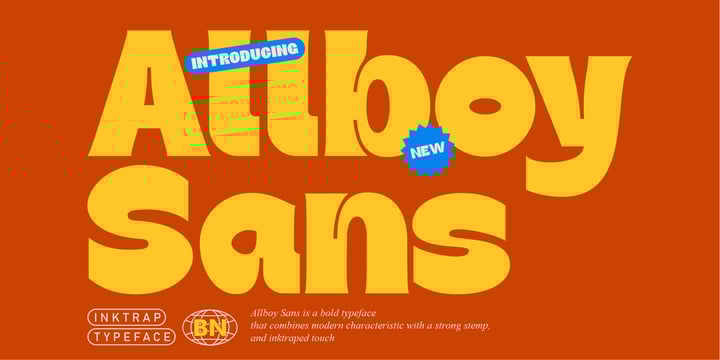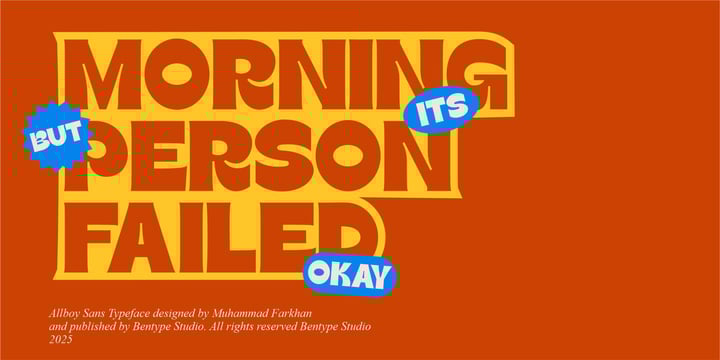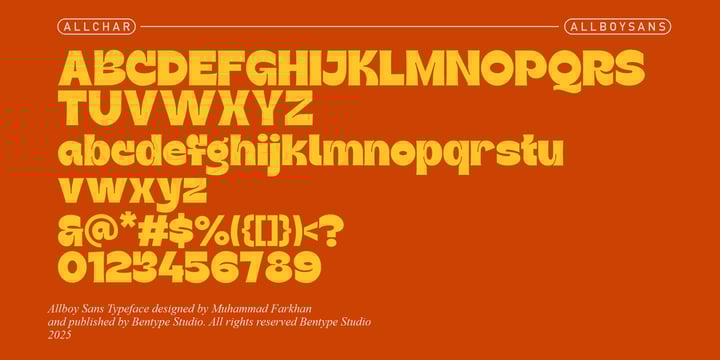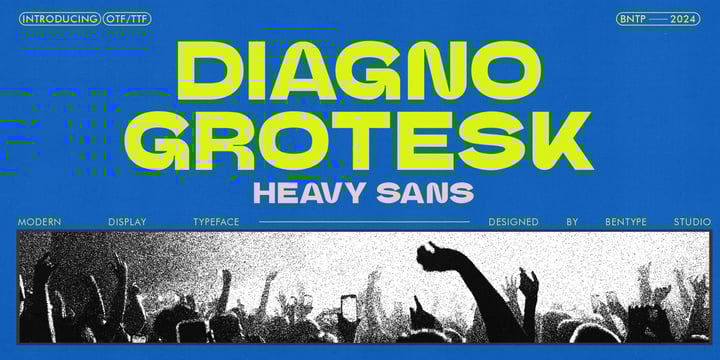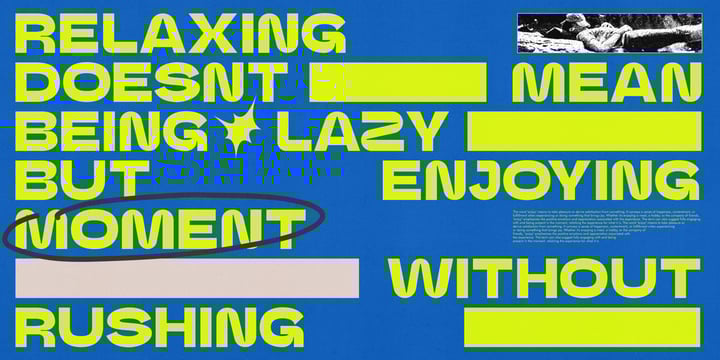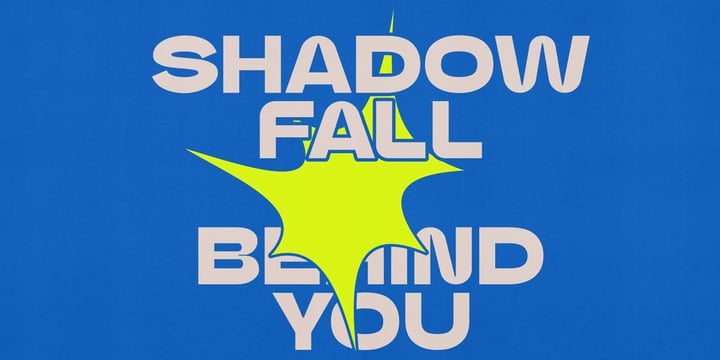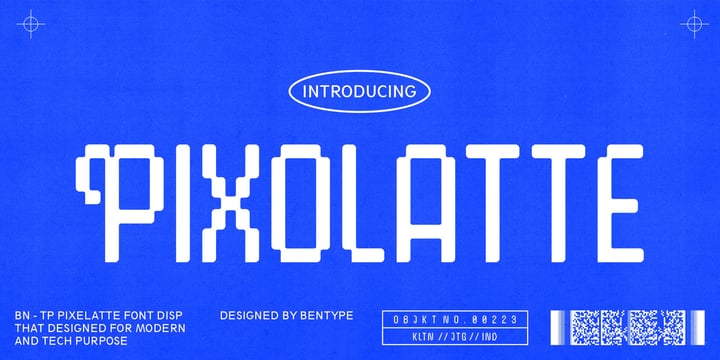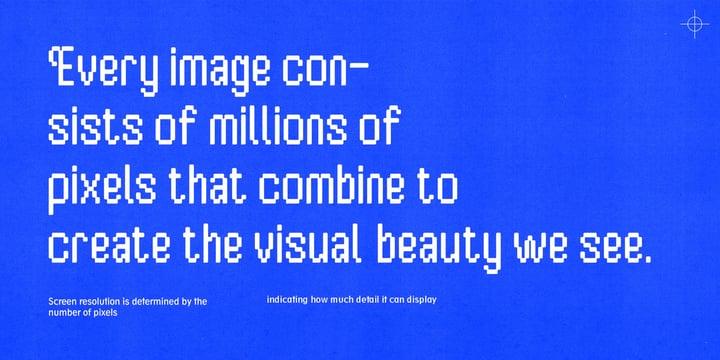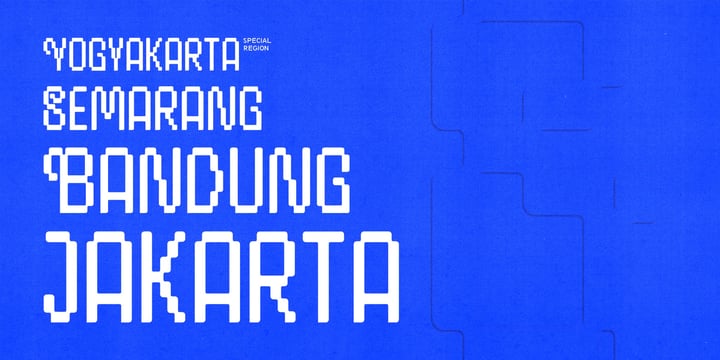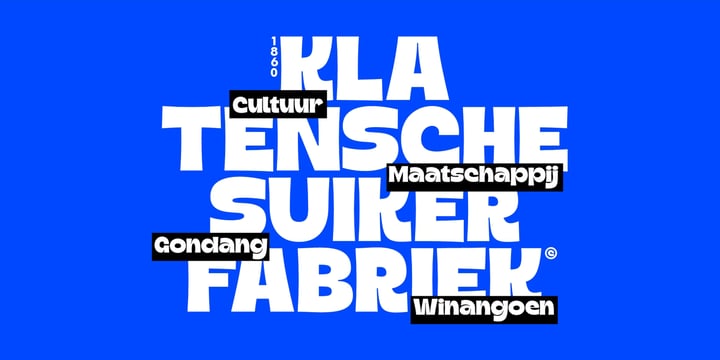
Hi, I am Muhammad Farkhan, a type designer from Indonesia since 2016. I studied at a design campus since 2012 in Yogyakarta and graduated in 2016. Since graduating from college I have worked as a type designer in several studios and in 2021 I founded a small studio called Bentype Studio. I design display fonts and sans serifs by paying attention to every detail. In designing a font, I often take inspiration from the traditional side or vernacular letters that I see around my environment. I start the design process by making a sketch and I do all the processes in my studio.